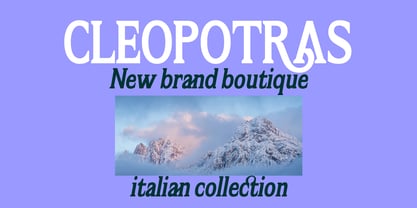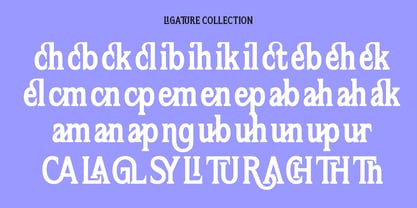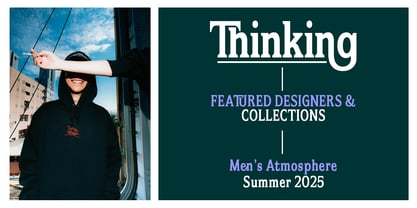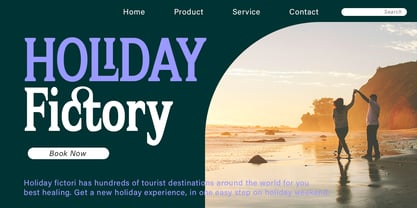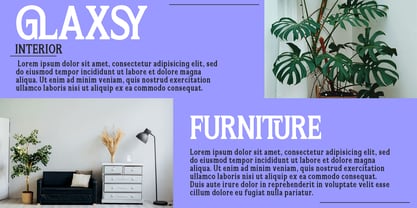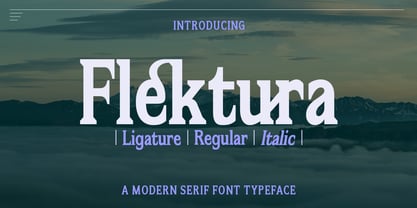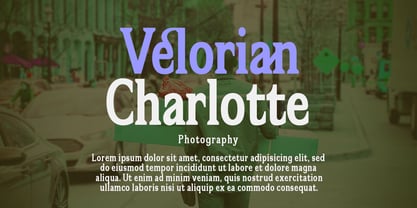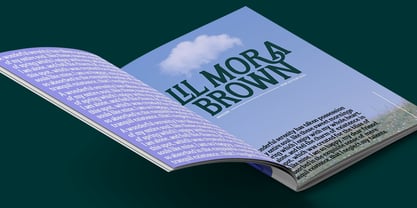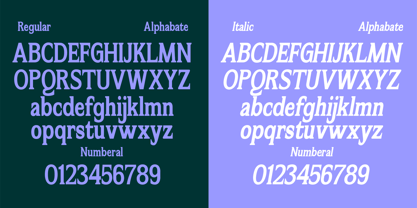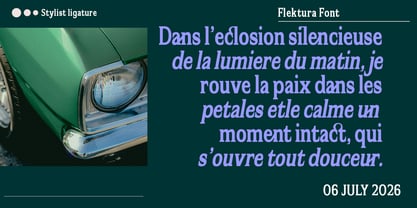
Flektura
by Propertype
The Flektura Font Family was designed by Nadia Auliana and published by Propertype. Flektura contains 2 styles and family package options.
Flektura is a elegant and warm serif typeface with a nuance classic. This typeface was intended to